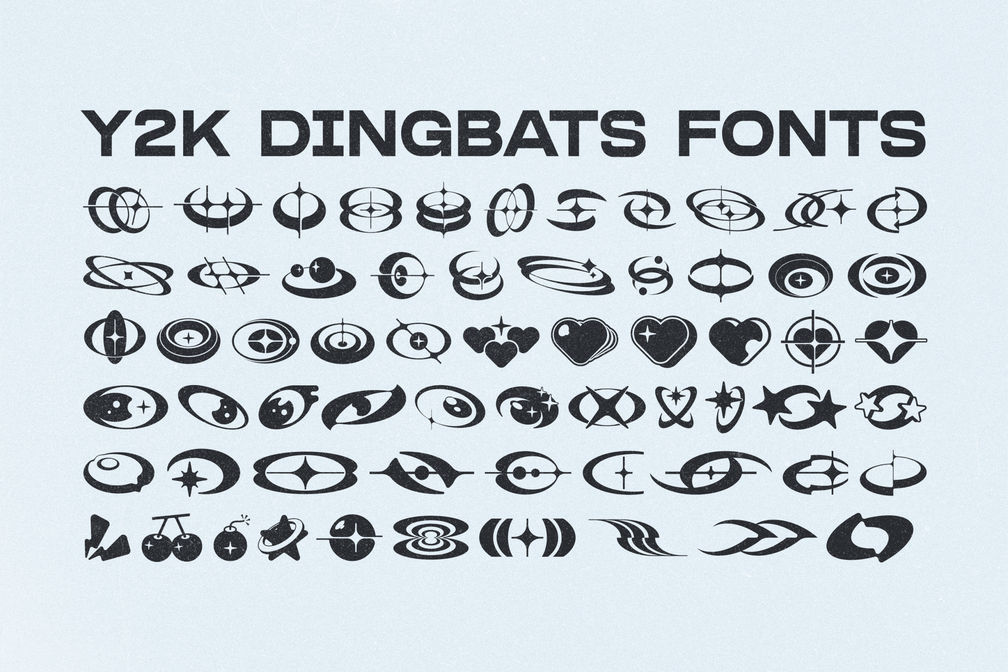
Y2K Element Dingbats Font
Presents vector-based abstract graphics in font format that you can use for personal and commercial designs in y2k, retro, electro or whatever.